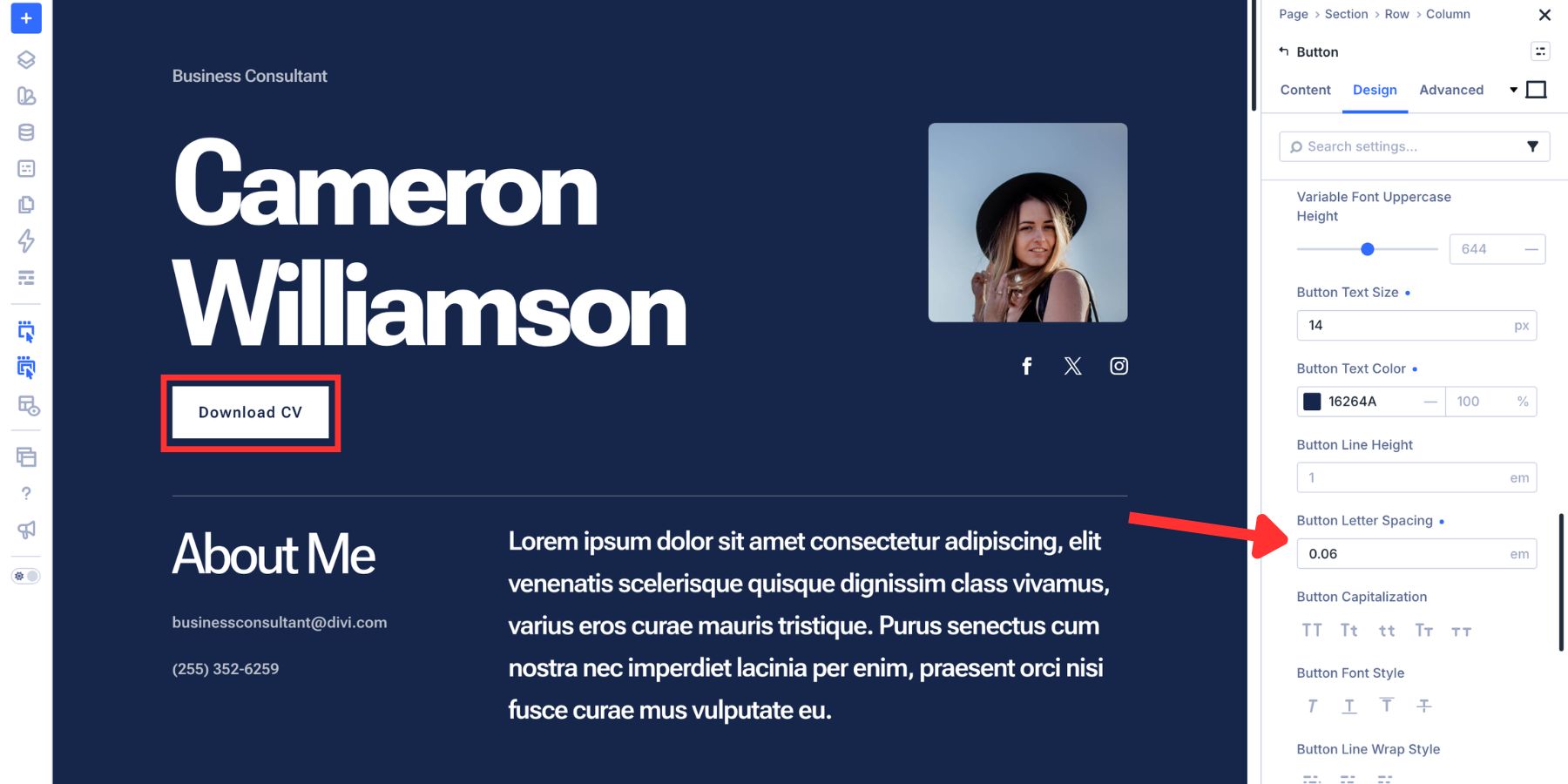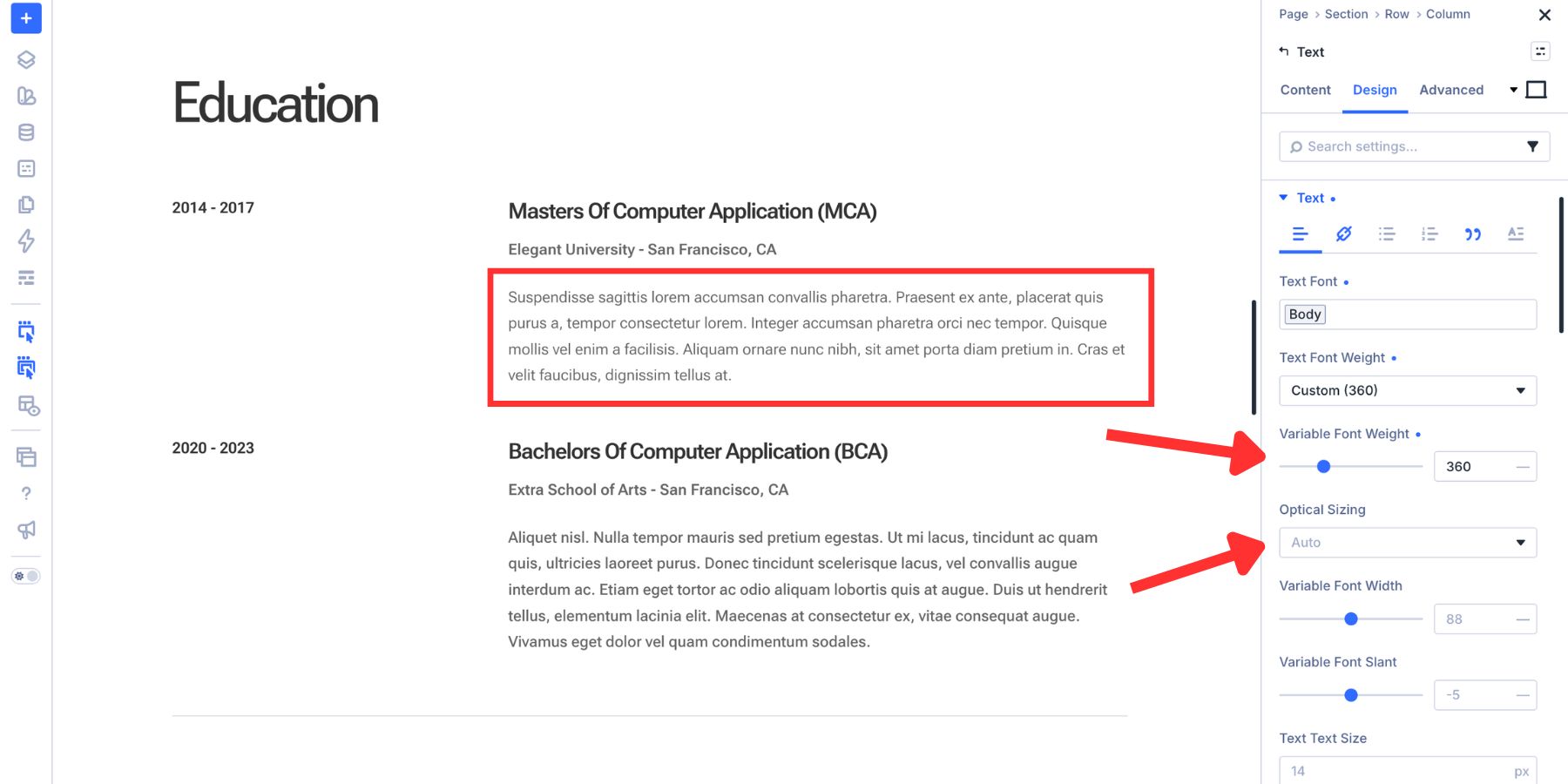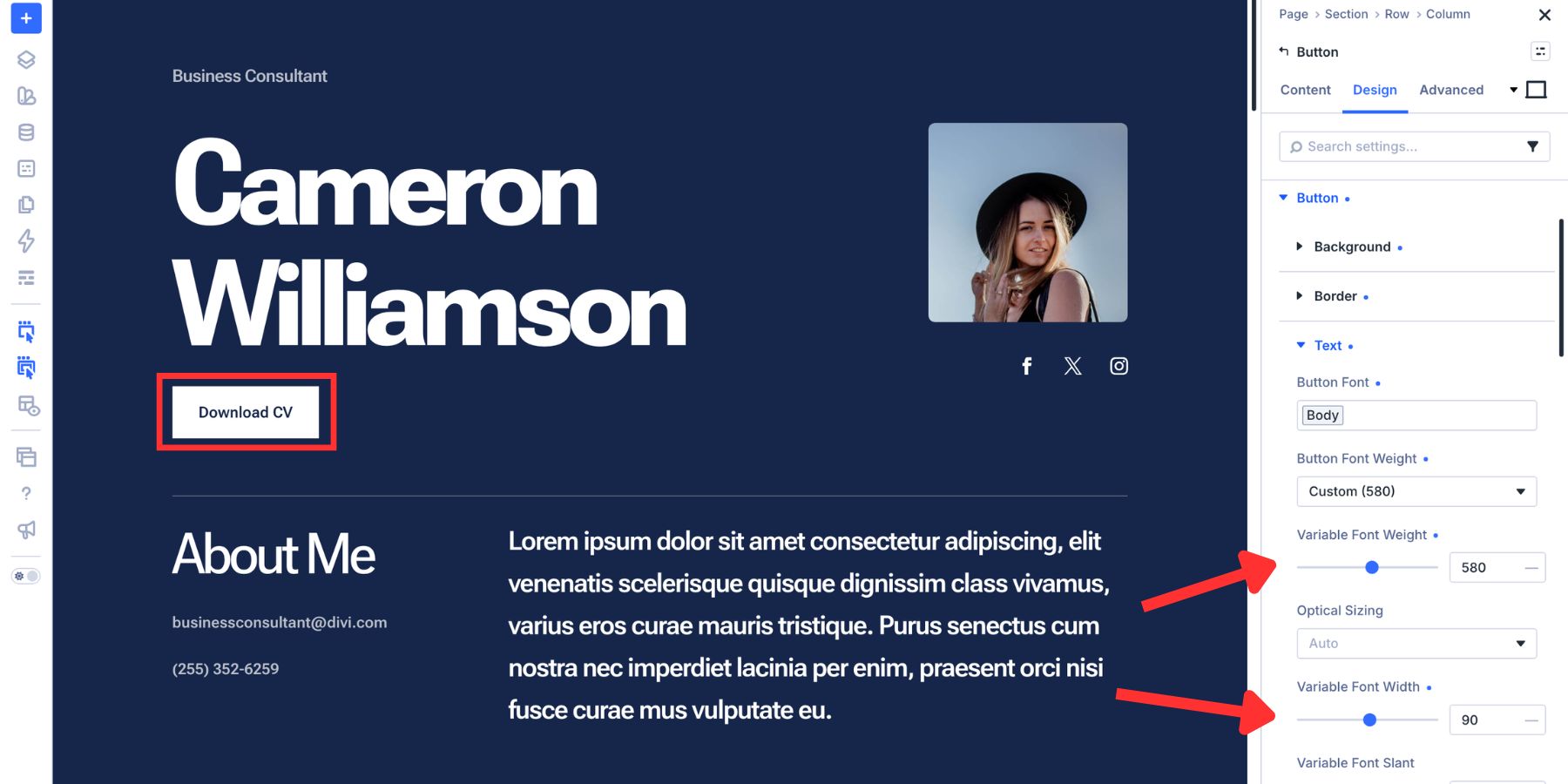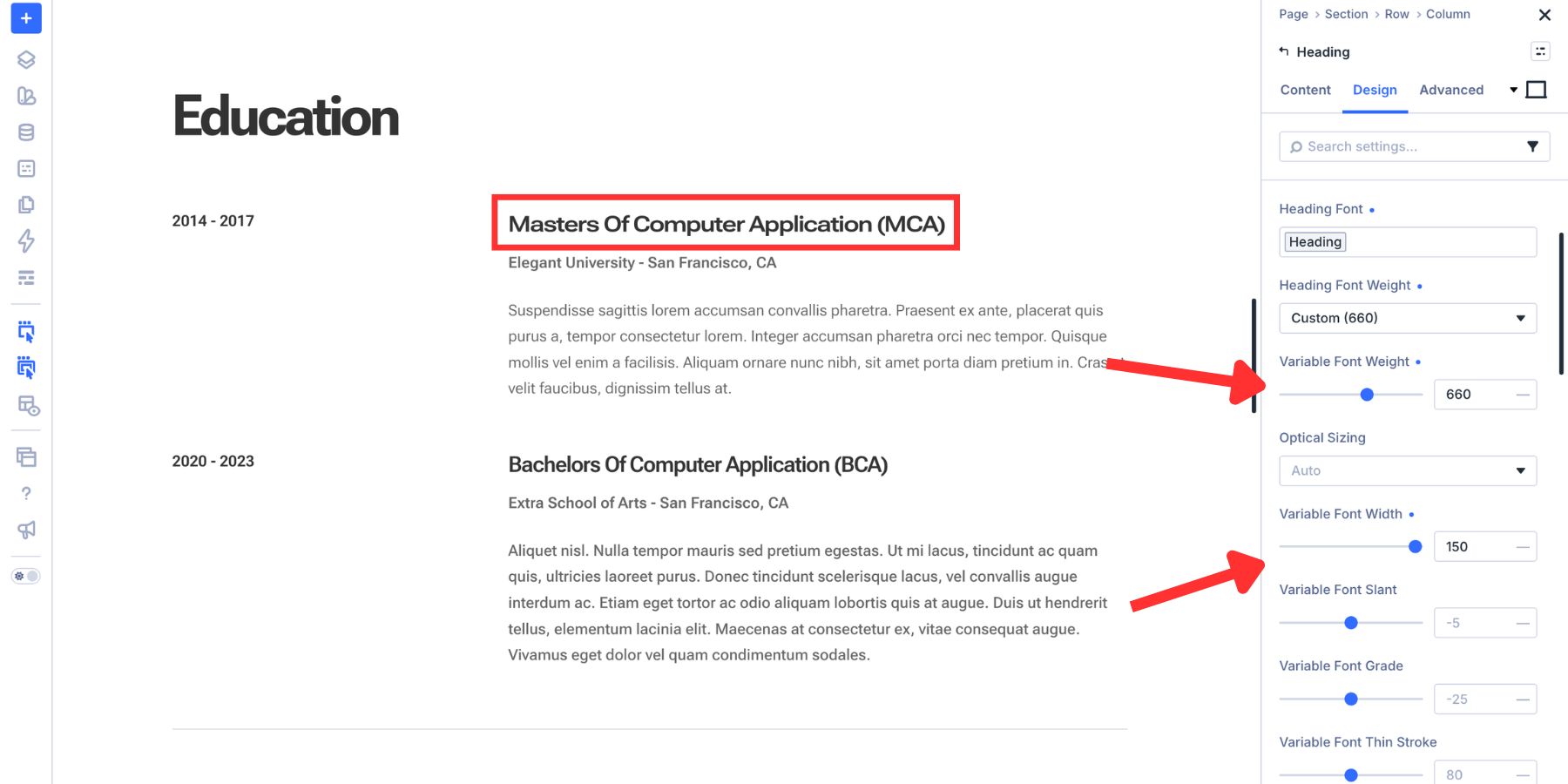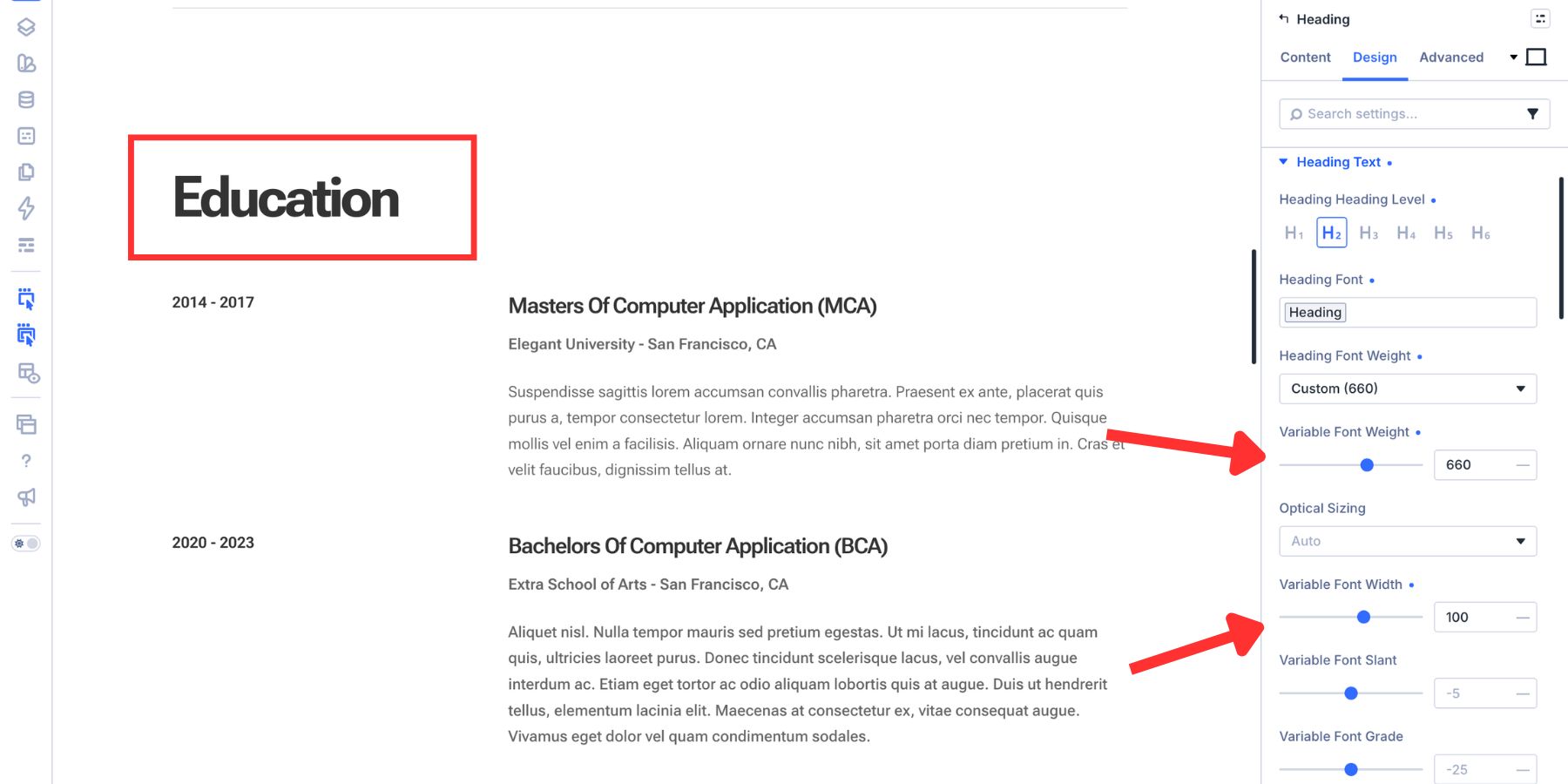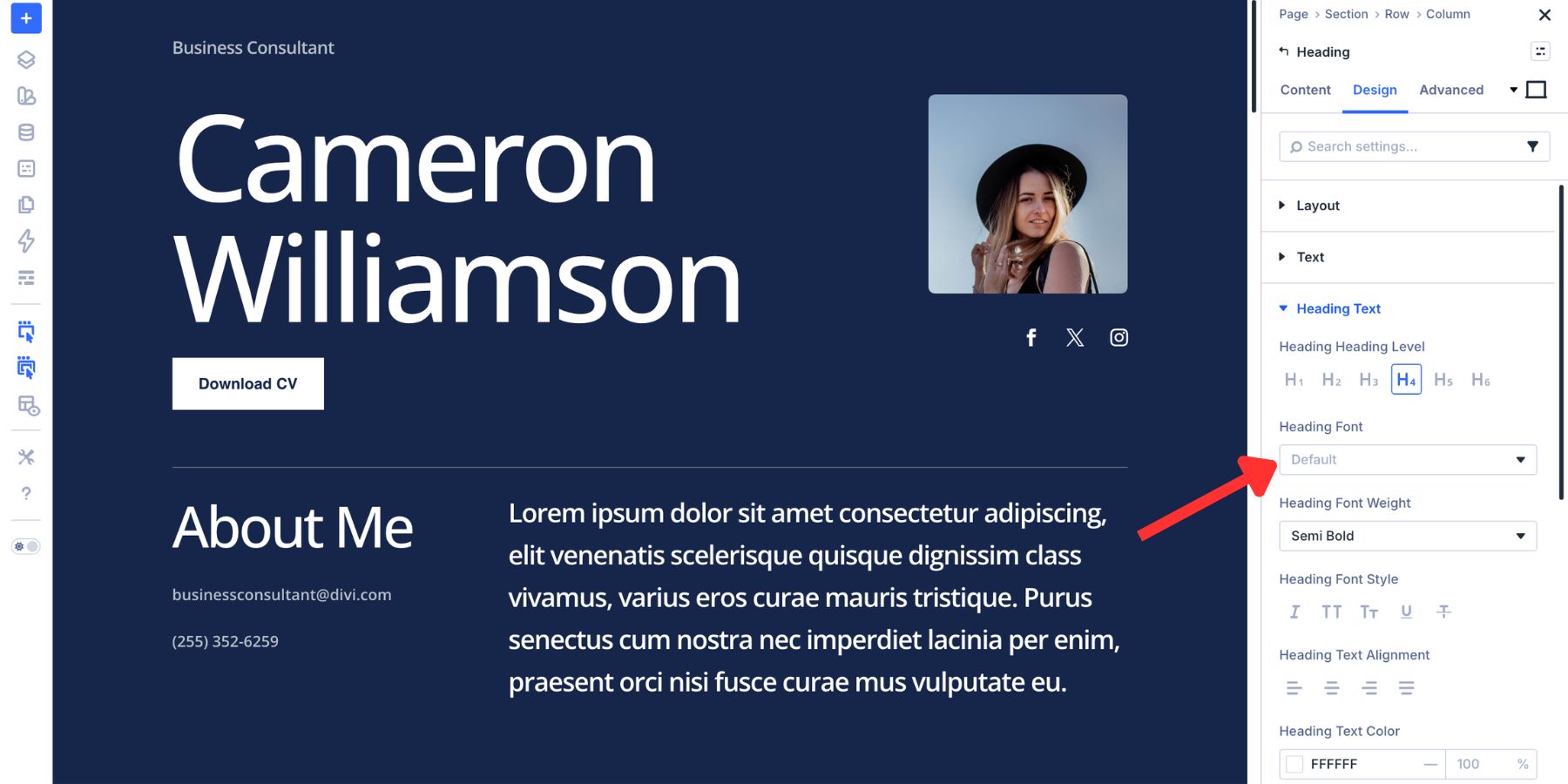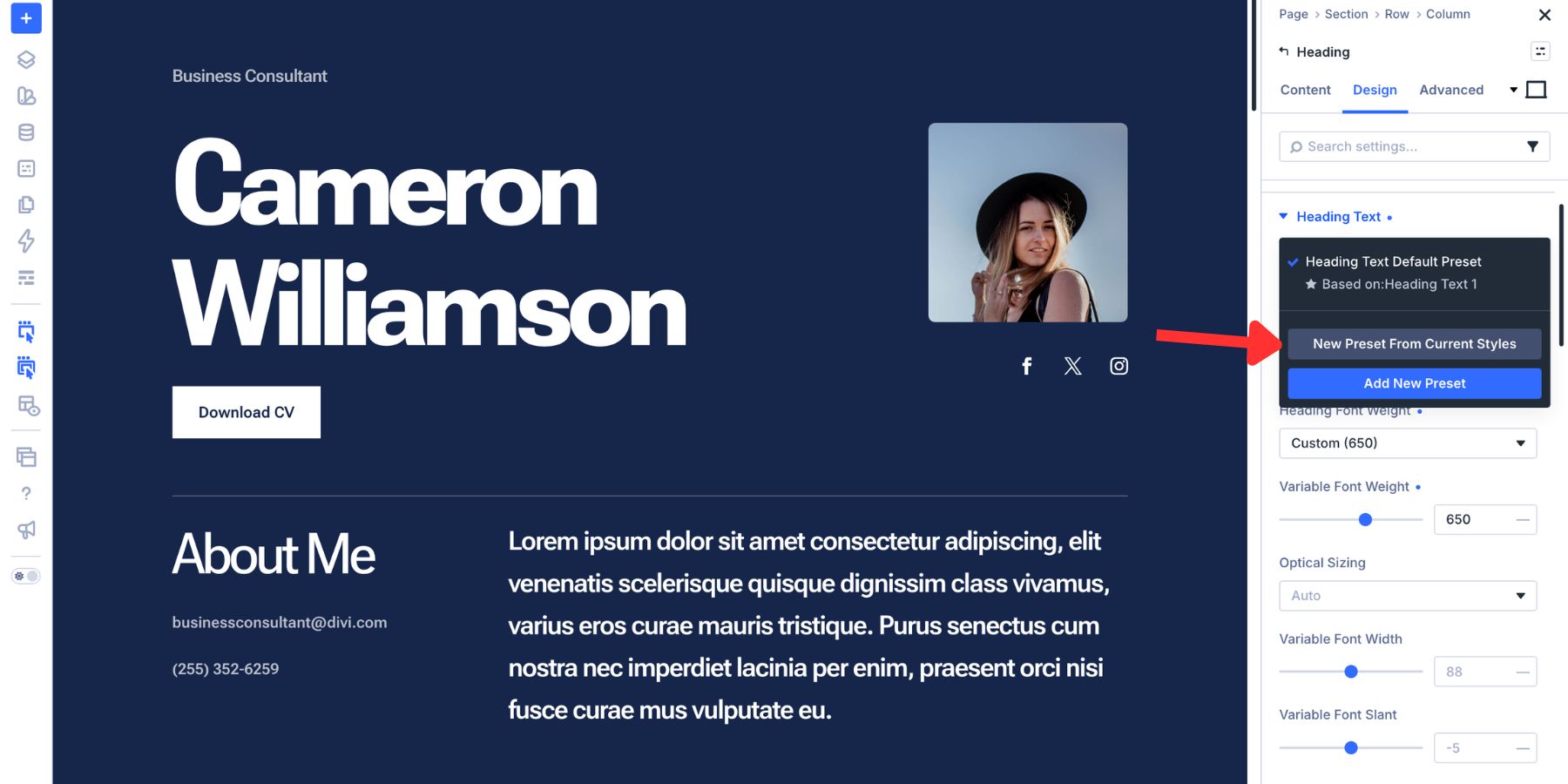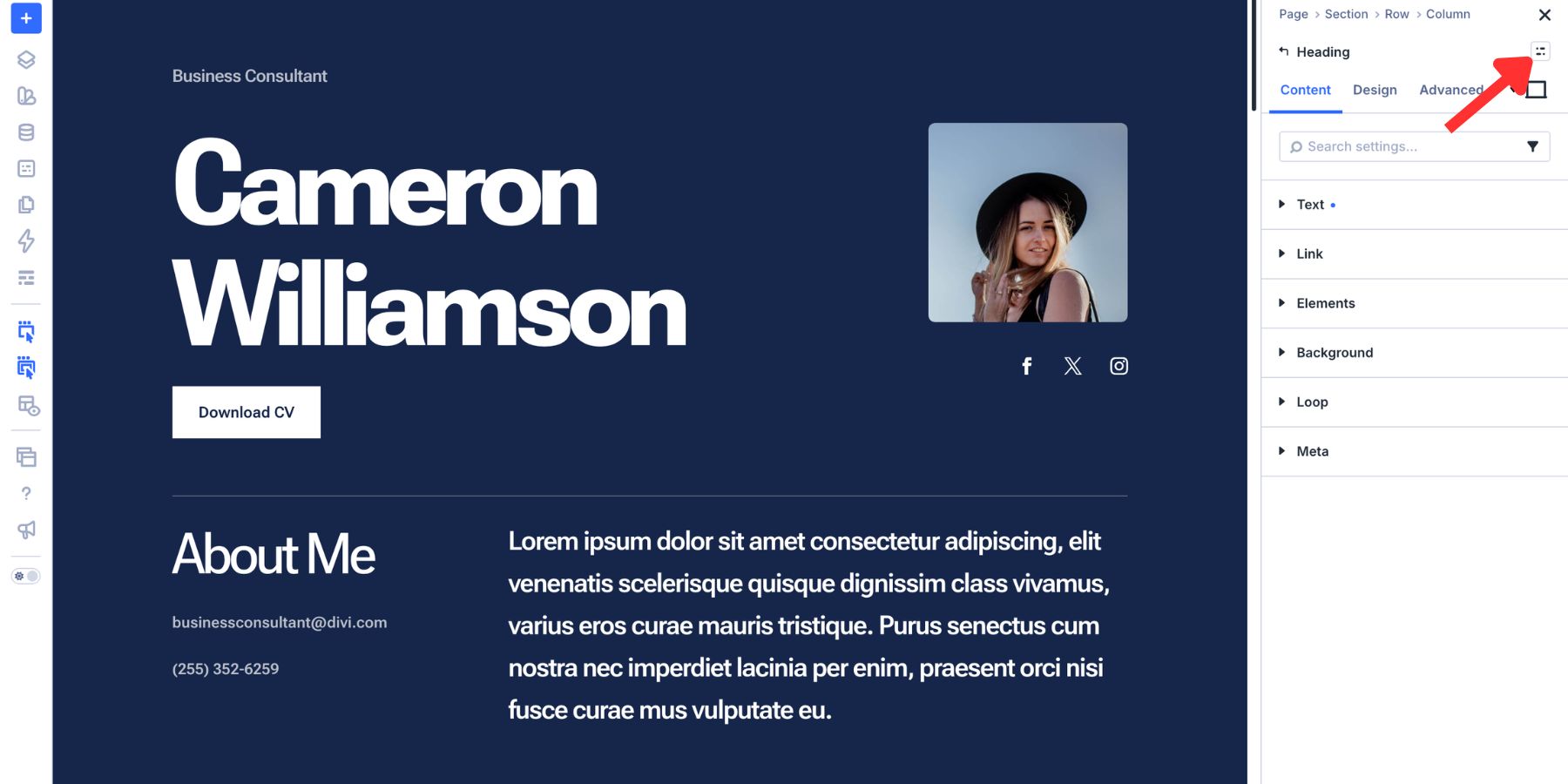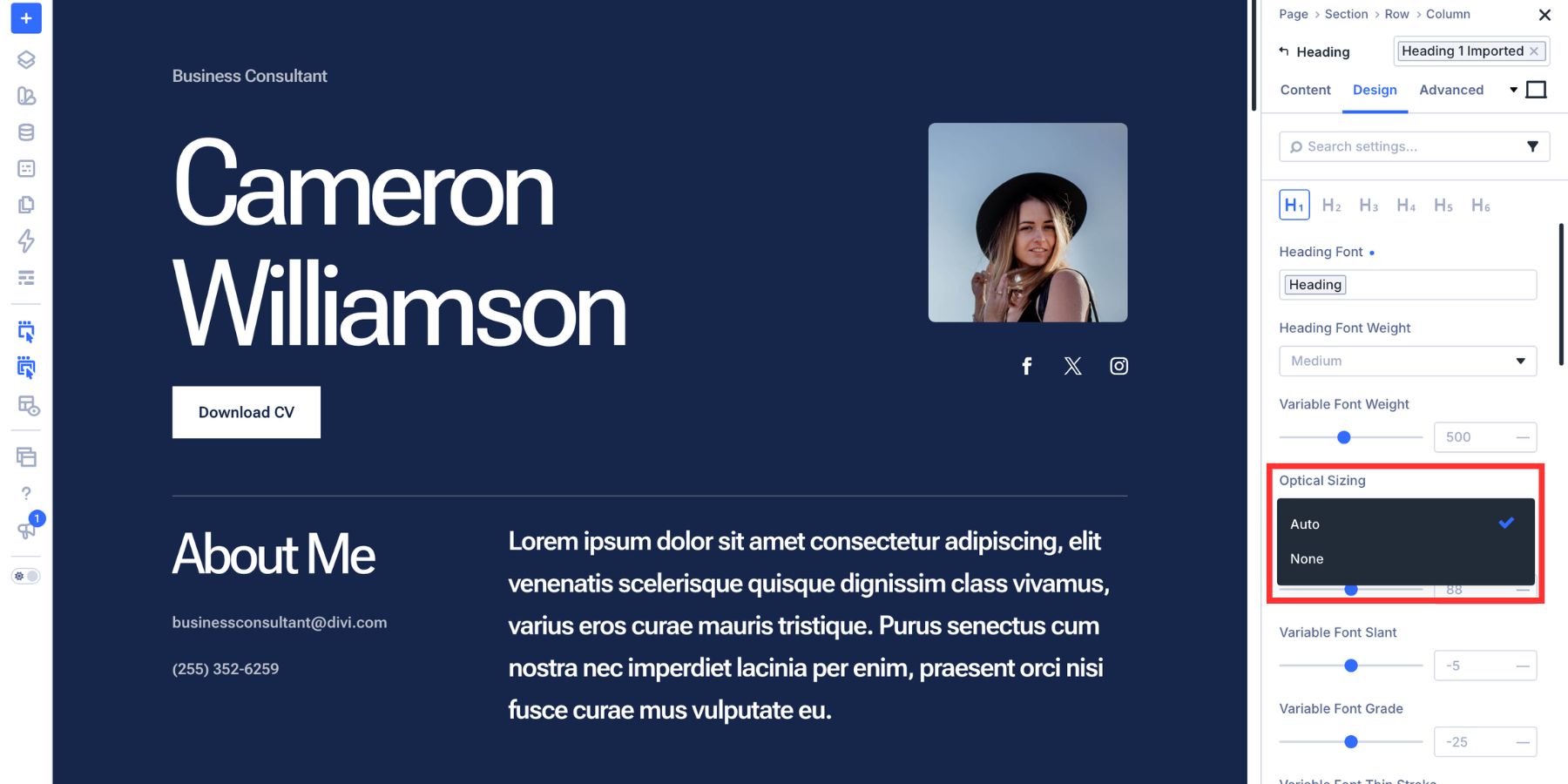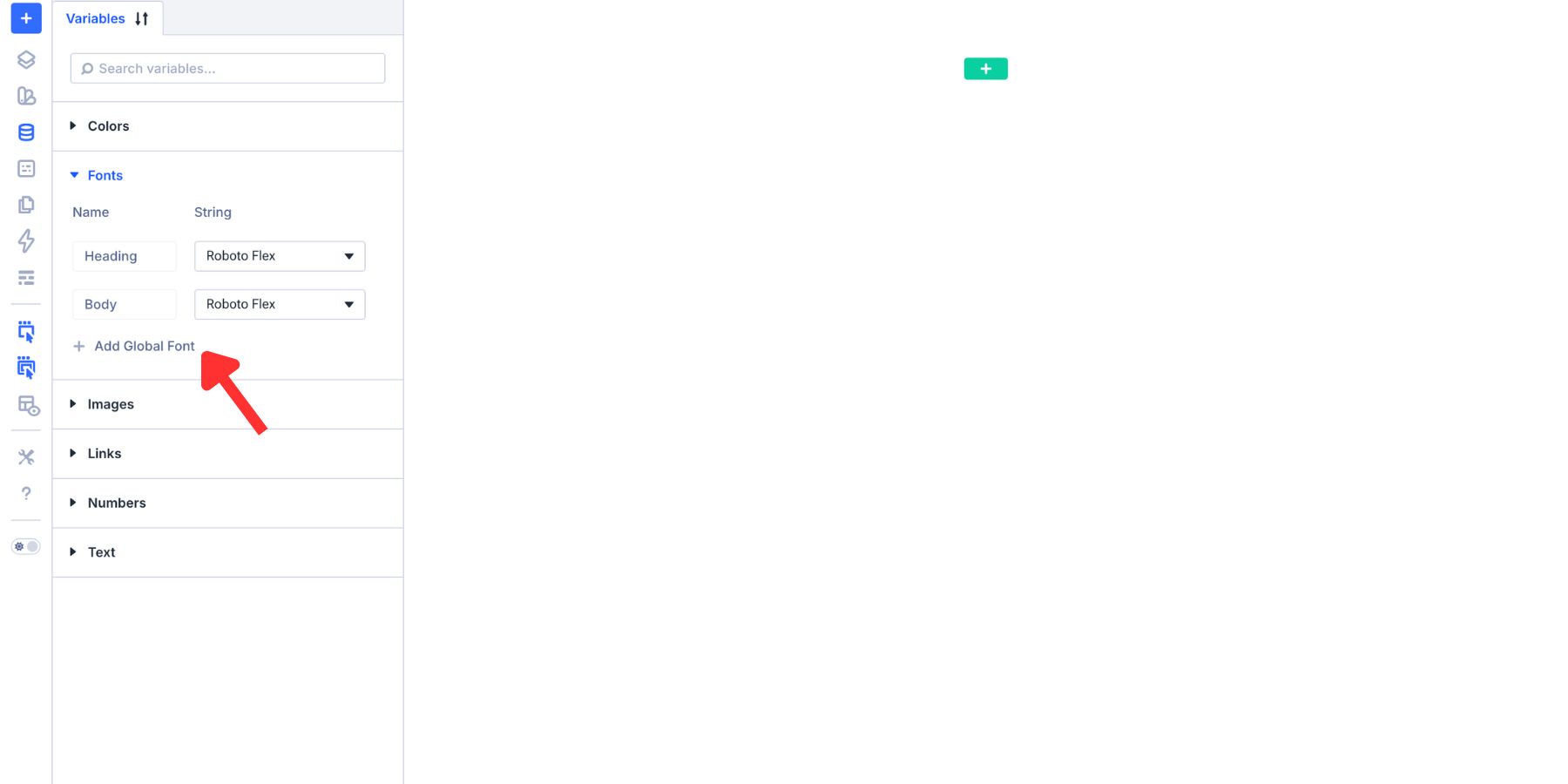
How To Create A Typography System With Variable Fonts In Divi 5
A strong typography system is more than choosing a heading font and a body font. It defines how type scales, how different text roles relate to each other, and which decisions stay consistent as the website grows. Variable fonts make that system much more flexible.
Instead of choosing only from fixed stops such as Regular, Medium, and Bold, a variable font can give you continuous control over supported axes such as weight, width, slant, optical size, Grade, and other font-specific characteristics.
Divi 5 brings those controls directly into the Visual Builder and connects them to the rest of its design system. Pair Variable Fonts with Font Variables, the Variable Generator, Number Variables, and Presets, and you can turn individual typography choices into a reusable sitewide framework.
In this tutorial, we’ll build that framework from the ground up. Think of it as a blueprint: choose the right variable font, establish the font family globally, generate a responsive type scale, define how each typographic role uses the font’s axes, and save those decisions as Presets that can be reused throughout the site.
What Are Variable Fonts And How Do They Help?
A variable font is an OpenType font that can store a range of typographic variations inside one font family. Instead of the type designer committing only to separate fixed styles, such as Regular at 400 and Bold at 700, the font can define a continuous range between supported extremes.
Weight is the clearest example. A static font family might provide separate files for Regular, Medium, Semi Bold, and Bold.
Static font family using separate fixed font weights
A variable font with a weight axis can instead expose a continuous range, such as 100 through 900. If you choose 520, you are using a point within the range defined by the typeface rather than being limited to the closest named weight.
Variable font showing a continuous range of font weights
Other axes can work the same way. A variable font might include width, slant, optical size, Grade, or more specialized controls alongside weight. Fonts such as Recursive and Roboto Flex are good examples of how much variation can live inside one family. That gives you more room to create hierarchy without automatically reaching for another typeface. Body copy, section headings, buttons, labels, and display text can all feel distinct while still sharing the same underlying font family.
A variable font can also replace several separate static font files when served appropriately, although the exact loading behavior depends on the font and how it is delivered. For a design system, however, the bigger benefit is flexibility: you gain more usable typographic values without multiplying the number of font families you have to manage.
Introducing Variable Fonts In Divi 5
A variable font may contain several axes, but those controls are only useful if your design tool can expose them. Divi 5 supports variable fonts through its Google Fonts integration. When you select a supported variable font, Divi reads the available axes and displays the relevant controls directly inside the text settings.
The exact controls depend on the font. A simple variable font might give you Weight and Optical Sizing. Another might also support Width, Slant, Grade, Roundness, or several custom axes. That means the Visual Builder adapts to the font you select instead of presenting the same generic variable-font controls for every typeface.
More importantly, these controls can become part of Divi 5’s broader design system. Font Variables can manage the typeface, Number Variables can manage the size scale, and Presets can store the specific axis values and typography settings for each role. That is where a flexible font becomes a reusable typography system.
The Blueprint: Build The Typography System In Layers
Before changing settings, it helps to separate the system into layers. The finished typography system will have six:
1. Font Family: Choose the variable font and store the main typefaces as Font Variables.
2. Size Scale: Use Divi 5’s Variable Generator to create reusable Font Size Variables for headings and supporting text.
3. Variable Font Axes: Decide how Weight, Width, Optical Sizing, Slant, Grade, and any other supported axes should behave.
4. Typography Roles: Turn those controls into intentional recipes for body copy, headings, buttons, and other text types.
5. Option Group Presets: Save those recipes so the same typography can be used across compatible modules.
6. Element Presets: Combine typography with the other design decisions that define complete modules.
This order matters because each layer depends on the one beneath it. The font family gives you the available axes. The Variable Generator provides the sizing scale. The role definitions decide how those values work together. Presets then distribute those decisions throughout the site.